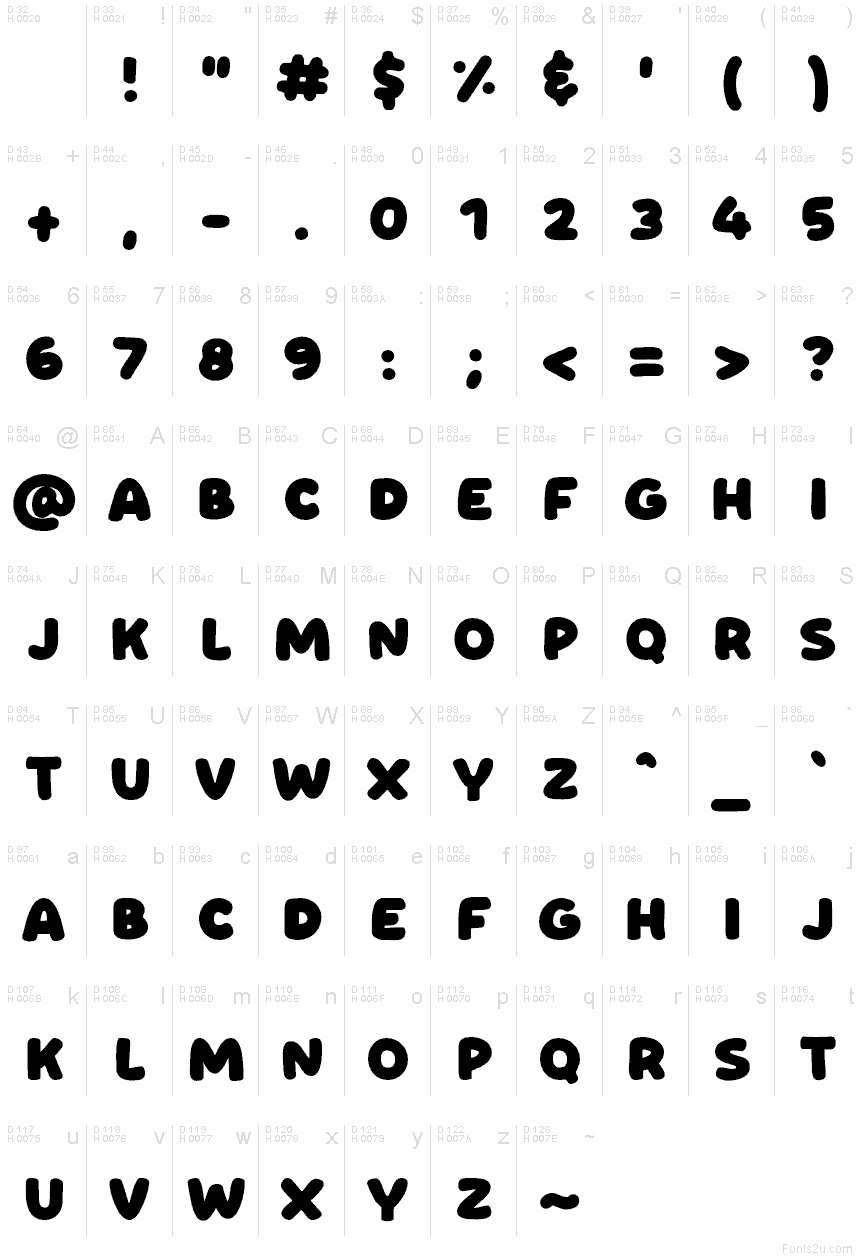
Lovely Face
Lovely Face font by Origin Type is a graceful display font with smooth contemporary curves and well-rounded letters. A free cartoon-style typeface that stands out due to its playful character and friendly inviting look obvious in every shape. Every single element is polished having the boldest finish possible perfect for titles, headings, and other prominent design areas.
As a versatile modern typeface, Lovely Face suits both print and digital use cases related to posters, movie covers, promotional ads, TV graphics, visual identity projects, content creation that includes typography videos & animations. This works in addition to packaging projects like food labels requiring exquisite design elements!